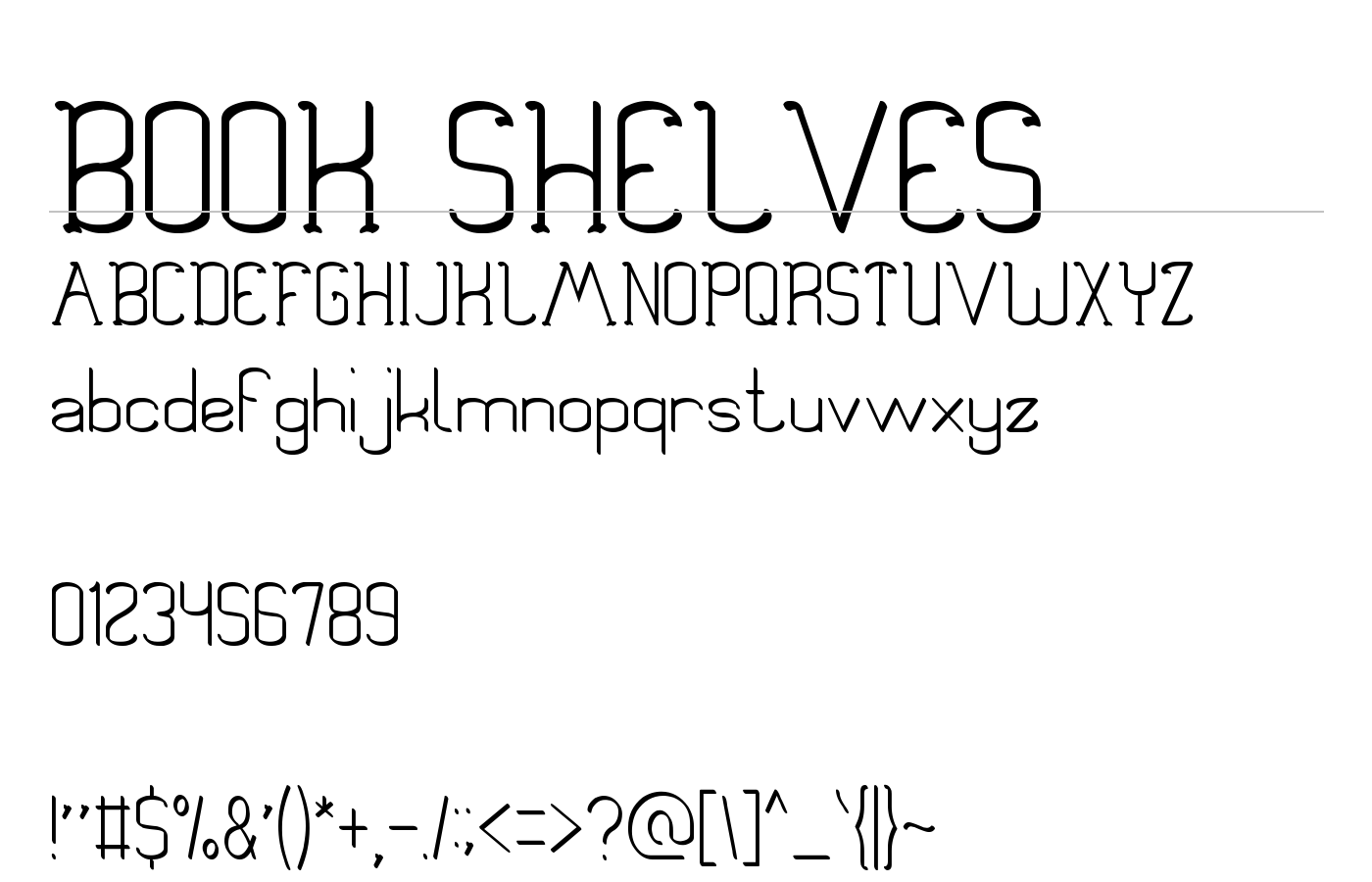
BOOK SHELVES is a delicate, narrow serif font with a vintage, handcrafted feel, featuring thin strokes and unique bracketed serifs with curled terminals. Its tall, elegant letterforms balance playful details with readability, making it perfect for creative headlines, boutique packaging, or editorial designs that want a touch of personality and charm. This font works well where a stylish, distinctive look is desired without overwhelming the text.
BOOK SHELVES Font
About BOOK SHELVES Font